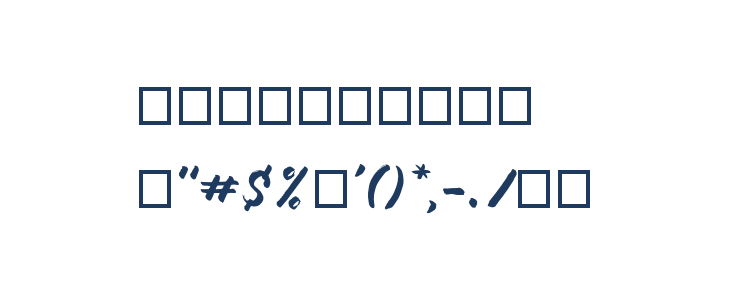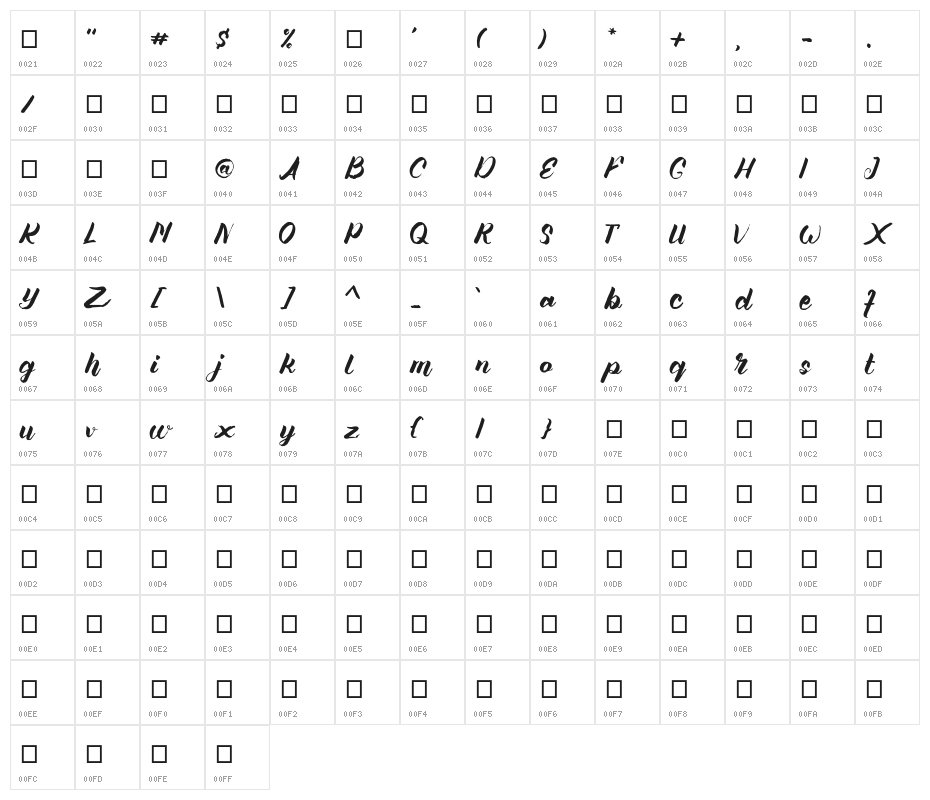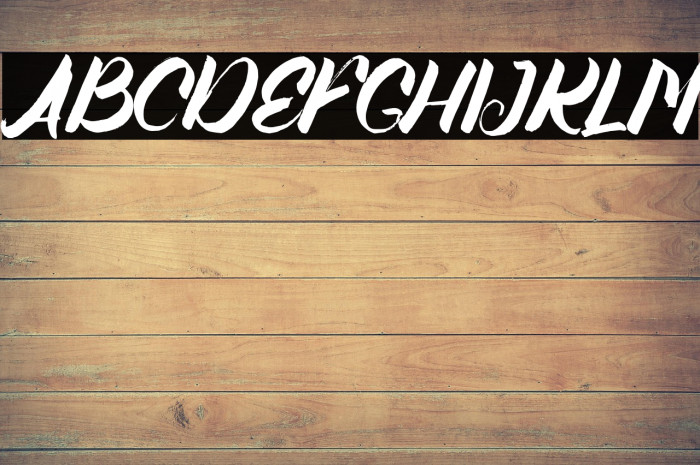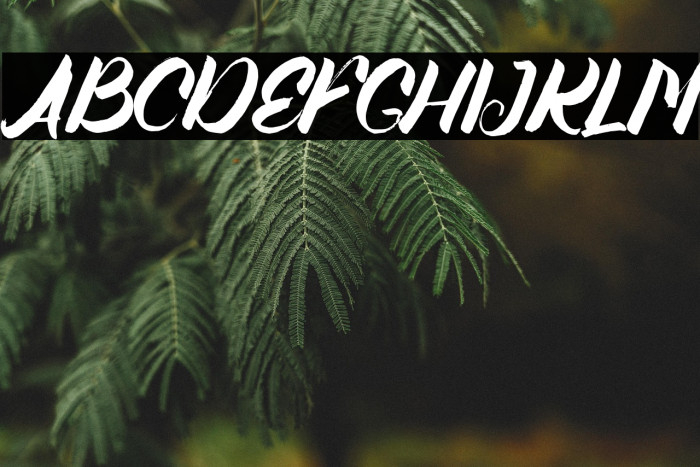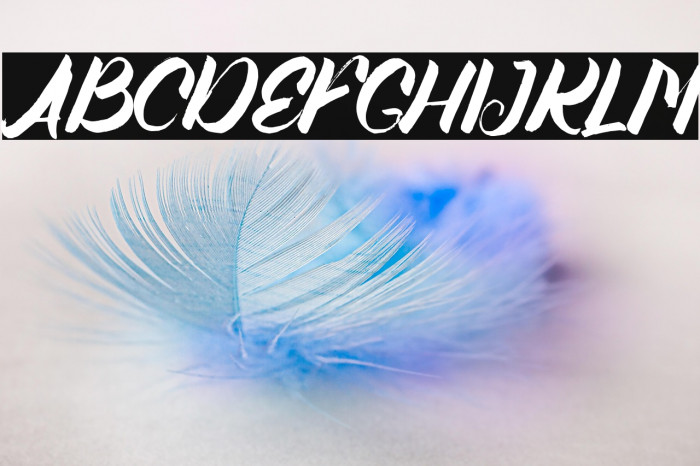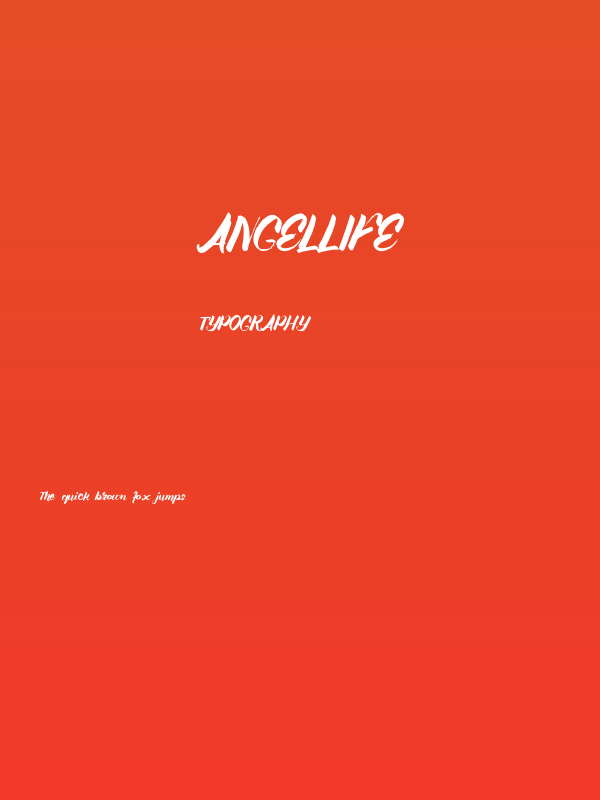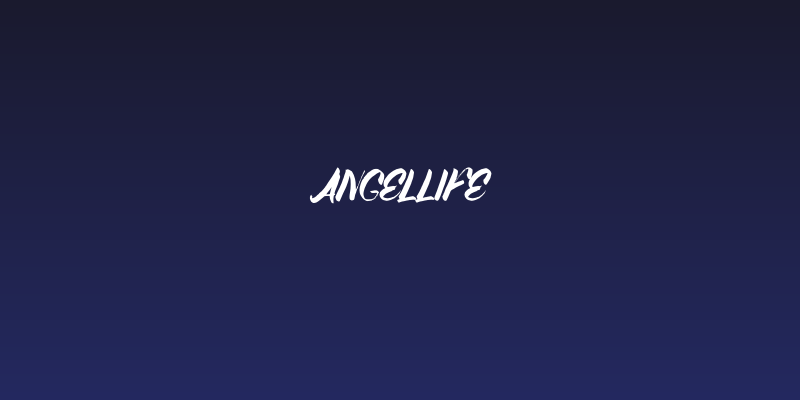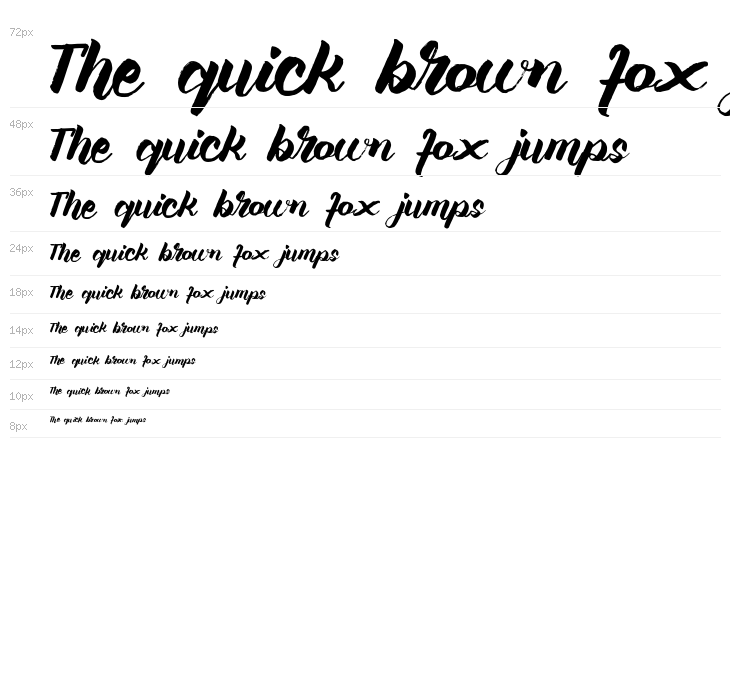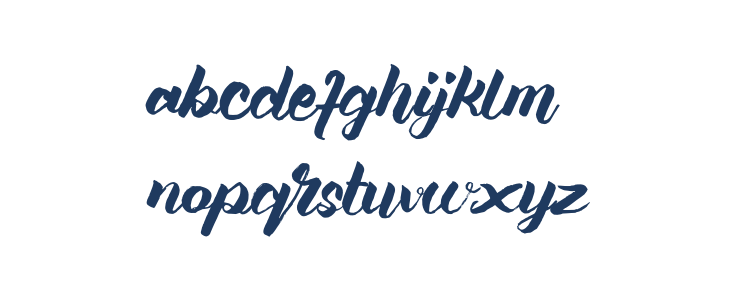
Angellife Font
Angellife Description
This font features a bold and expressive script style with a handwritten appearance. The letters are connected, creating a fluid and dynamic look. The strokes are thick and consistent, giving the font a strong presence. The uppercase letters are slightly more formal, while the lowercase letters maintain a casual and friendly vibe. The font includes a full set of uppercase and lowercase letters, numbers, and a variety of special characters, making it versatile for different design needs.